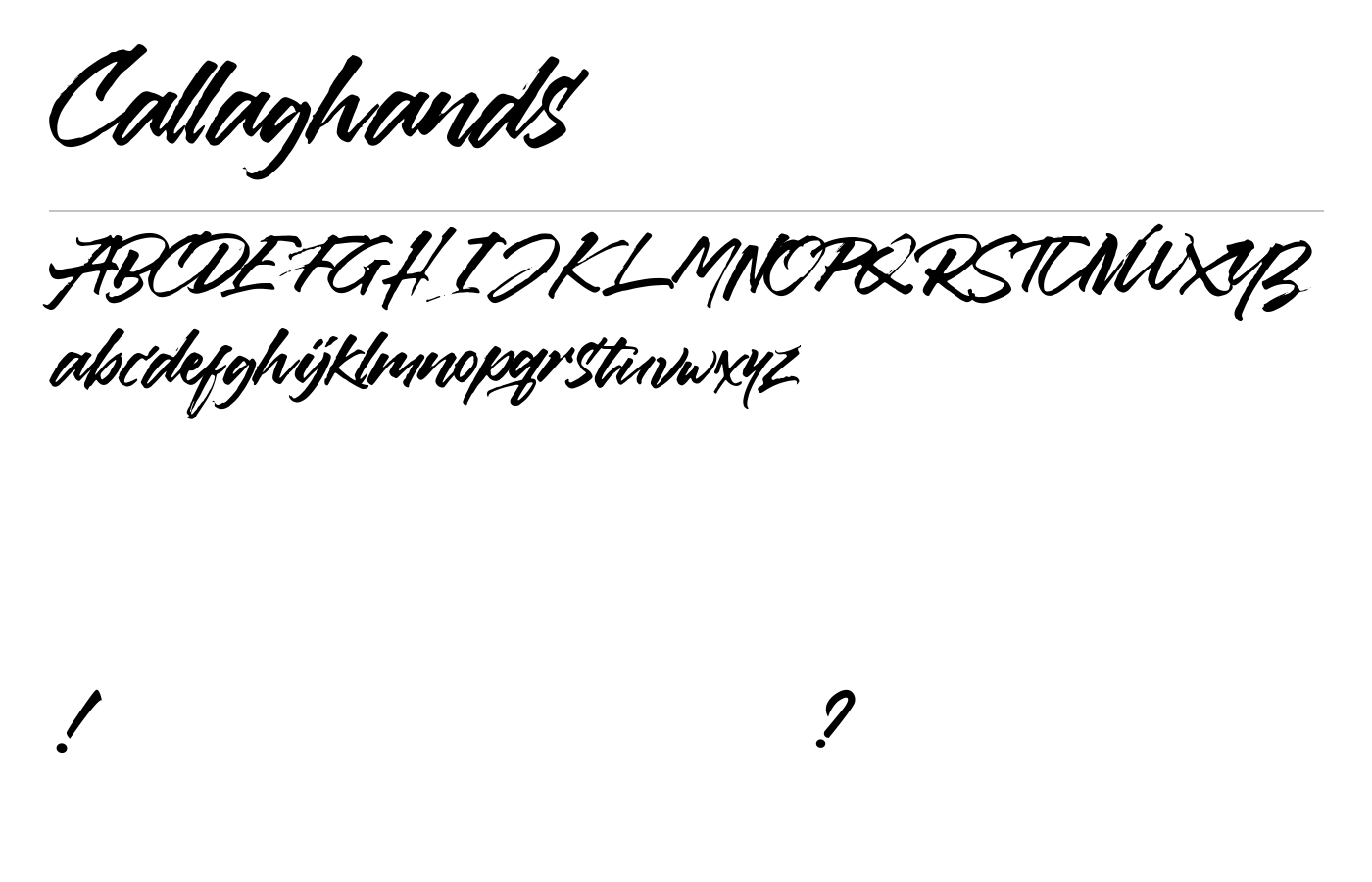
Callaghands is a bold, expressive script font that mimics energetic, hand-painted brush lettering with a lively and somewhat rough texture. Its dynamic strokes and casual flow give it a creative, artistic personality, making it ideal for branding, invitations, and designs that need a personal, handcrafted touch. This font works best in headlines, logos, and packaging where a spirited and informal style can stand out.
Callaghands Font
About Callaghands Font